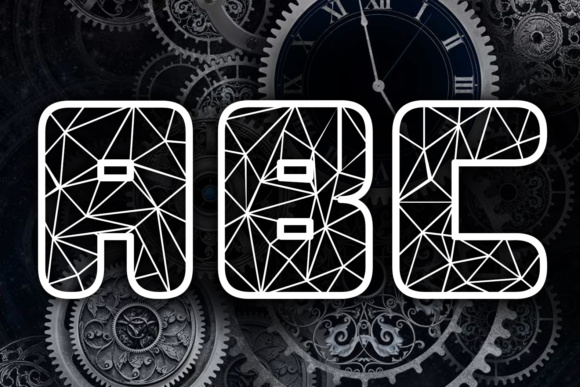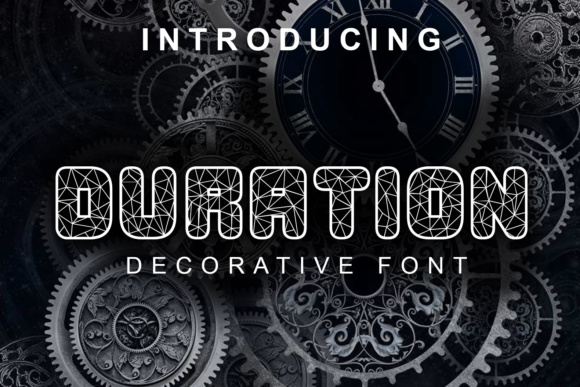
Introducing Duration Font: Elevate Your Designs with Style
Are you tired of using the same old fonts in your designs? Look no further! Duration Font is here to take your creative projects to the next level. This awesome decorative font comes in two stylish variations: regular and italic. With its unique charm, Duration Font is perfect for adding a touch of elegance and sophistication to your banners, flyers, headlines, and more.
What Makes Duration Font Stand Out?
Duration Font boasts a distinctive design that sets it apart from other fonts. Its elegant lines and curves make it an excellent choice for designers and crafters looking to add a touch of personality to their work. Whether you’re creating a bold statement or a subtle accent, Duration Font is sure to impress.
Key Features of Duration Font
• Regular and Italic Styles: Duration Font comes in two variations, allowing you to mix and match to create visually appealing designs.
• Decorative and Elegant: The font’s unique design makes it perfect for adding a touch of sophistication to your projects.
• Versatile: Use Duration Font on banners, flyers, headlines, and more to create stunning designs.
• Easy to Read: Despite its decorative nature, Duration Font remains clear and easy to read, making it perfect for use in a variety of applications.
Duration Font is a must-have for designers and crafters looking to elevate their creative projects. Whether you’re working on a:
• Banner: Create eye-catching banners that grab attention with Duration Font.
• Flyer: Add a touch of elegance to your flyers and make them stand out from the crowd.
• Headline: Use Duration Font to create bold and eye-catching headlines that draw readers in.
• Logo: Create a unique and memorable logo with Duration Font.
Tips for Using Duration Font
To get the most out of Duration Font, here are a few tips:
• Mix and Match: Combine the regular and italic styles to create visually appealing designs.
• Experiment with Colors: Try out different colors to find the perfect match for your design.
• Play with Sizes: Use Duration Font in various sizes to create a hierarchy of information.
Duration Font is an excellent addition to any designer’s or crafter’s toolkit. Its unique and elegant design makes it perfect for adding a touch of sophistication to a variety of creative projects. With its regular and italic styles, versatility, and ease of use, Duration Font is sure to become a favorite. So why wait? Download Duration Font today and take your designs to the next level!
Duration Font is a game-changer for designers and crafters looking to elevate their creative projects. Its unique design, versatility, and ease of use make it an excellent choice for anyone looking to add a touch of elegance and sophistication to their work. So don’t miss out on this amazing font – download Duration Font today and start creating stunning designs!